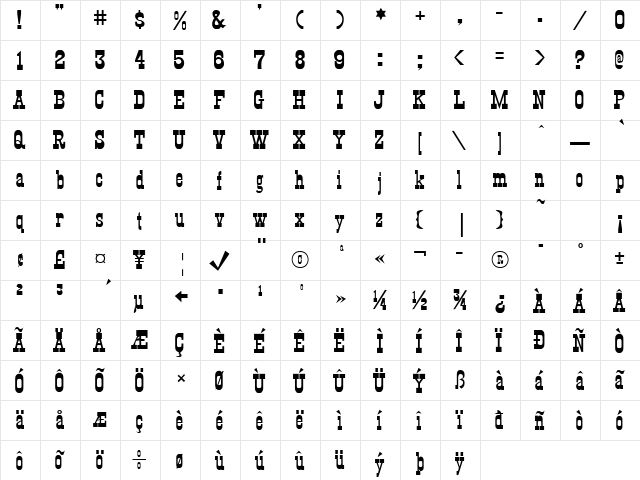
KyhotaOne Regular
Design Context for KyhotaOne Typeface
KyhotaOne takes a measured approach to typography — its balanced proportions and neutral character make it a reliable workhorse for both digital and print work.